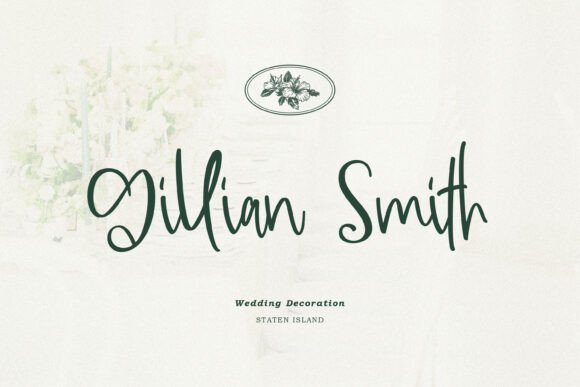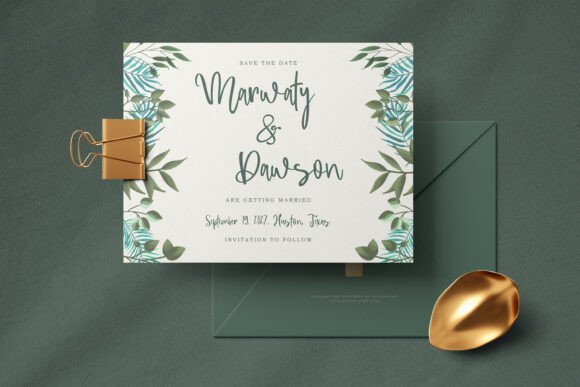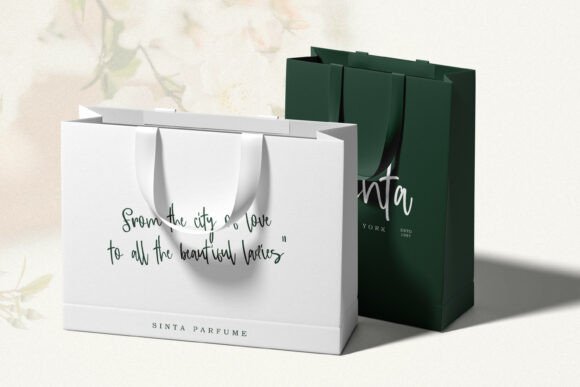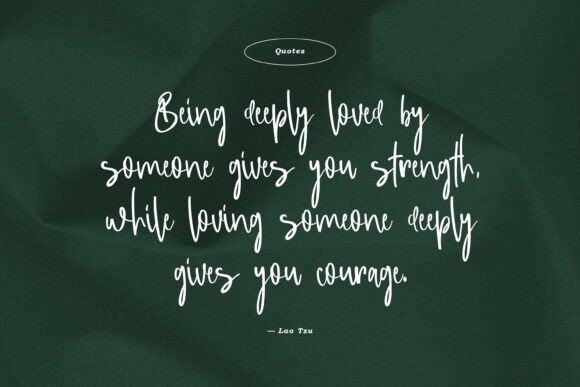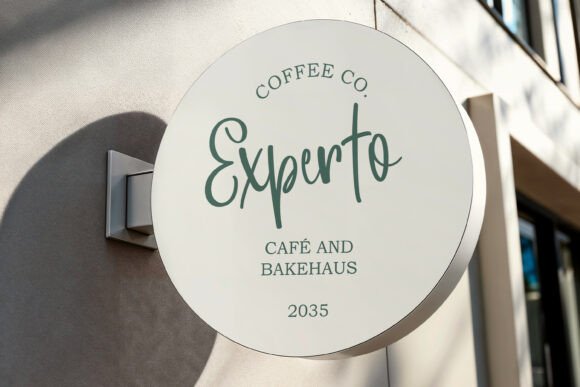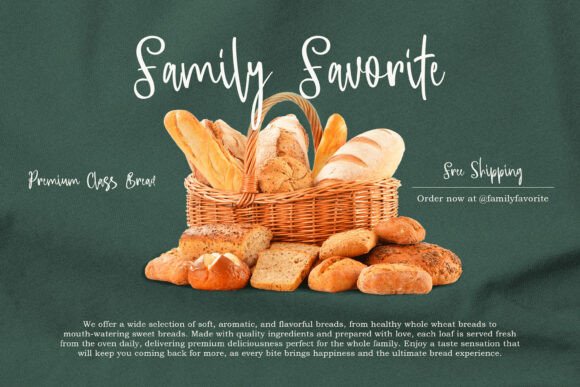
Introduction to Massipak Font
The Massipak font was born from a philosophy of artistic simplicity—each curve represents a harmony between boldness and softness.
Designed with meticulous care, each stroke reflects a balance between aesthetics and technical precision With a smooth letter structure without excessive nodes, the Massipak font maintains its sharpness and beauty even when printed at large sizes.